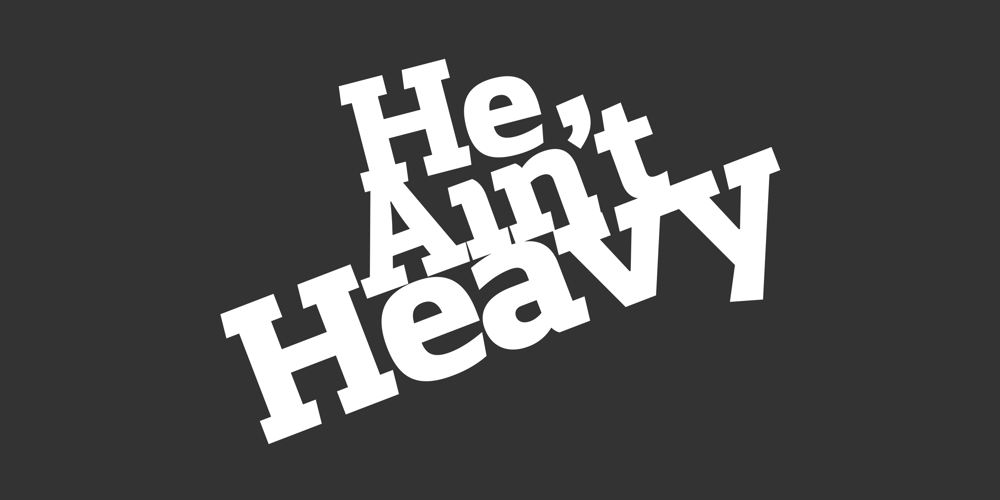
FS Silas Slab Font Family was designed by Béla Frank and published by Fontsmith. FS Silas Slab contains 10 styles and family package options. Slab-like siblingWhy stop at sans? Rather than leave FS Silas Sans as an only child, the team wanted to extend the family, and create a complete system for brands and editorial. Unsure what the result would be, the team started experimenting with a slab serif version. ‘We didn’t know how it would turn out, but we really liked it and wanted to take it further.A fresh angle‘We stuck with the angular theme of the sans by drawing angled slab serifs,’ says Phil Garnham, ‘as opposed to the square serifs that slab fonts usually have. That created an inner dynamism in words and sentences on the page, and a very distinctive, crafted character, like a Victorian soul in a contemporary body.’These crafted touches include details such as the angled ascenders on the ‘i’ and ‘l’, while characters such as the ‘y’, with its abruptly-ending descender, add a mark of distinction.A perfect pairSilas Slab, like its sibling, offers a clear-cut range of five weights, from the elegant Thin to the monumental ExtraBold. Put it together with Silas Sans and you have the full complement, capable of performing the full range of tasks, above the line and below, in headlines, body copy and logotypes, B2B and B2C. Keep them together; they don’t like it when they’re apart.